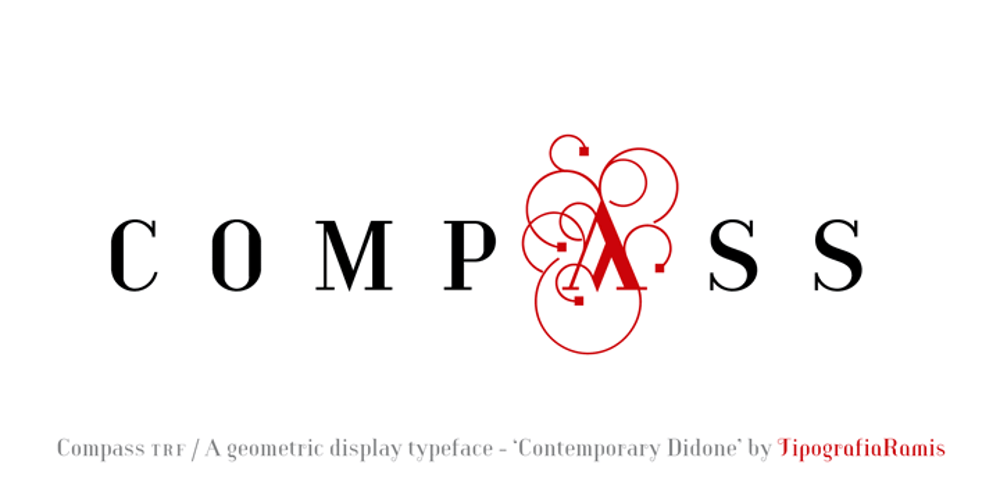
Compass TRF Font Family was designed by Ramiz Guseynov and published by TipografiaRamis. Compass TRF contains 4 styles and family package options. Compass TRF is a reevaluation of an existing Compass typeface dated 2002. Compass is a geometric contrast serif typeface – “contemporary Didone”. New Compass consists of four styles—regular, italic, alternate and flourish initials with small caps. Compass TRF is recommended for use as display typeface. It is suggested that flourish initials font to be used for decorative purpose only, not basic typesetting. Compass TRF generated as OpenType single master format with Western CP1252 character set.